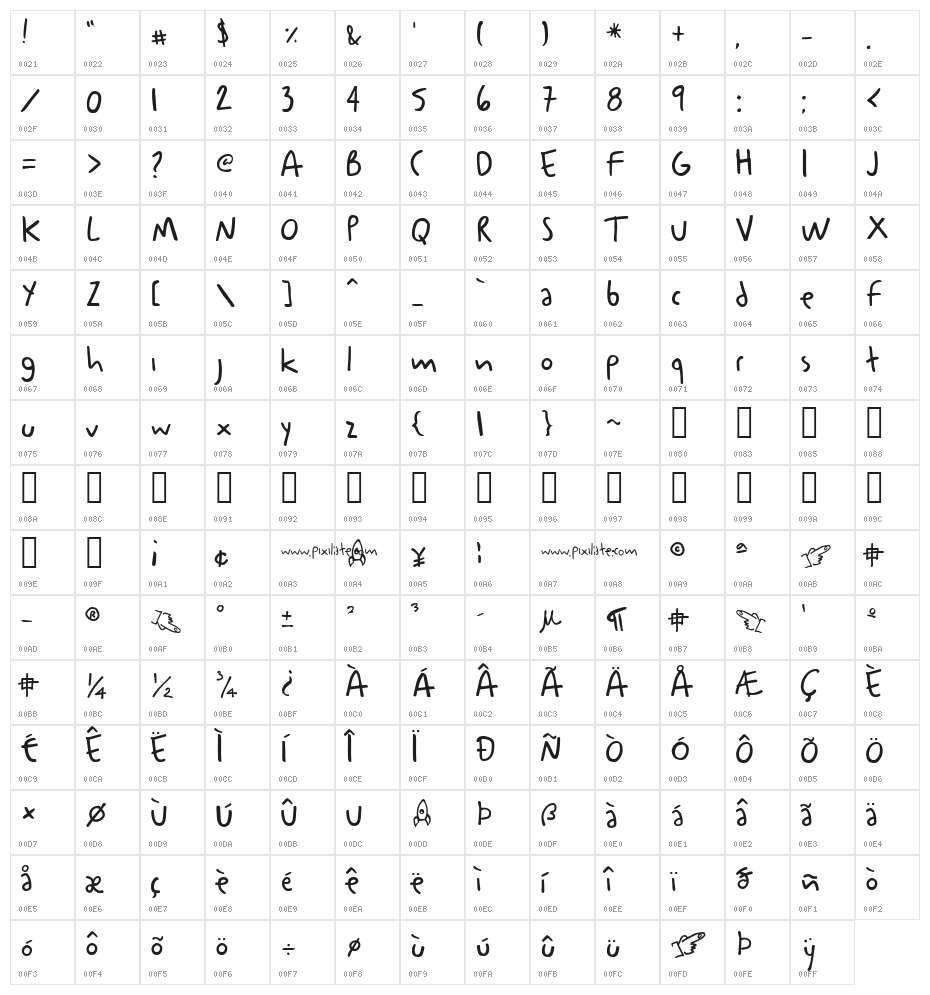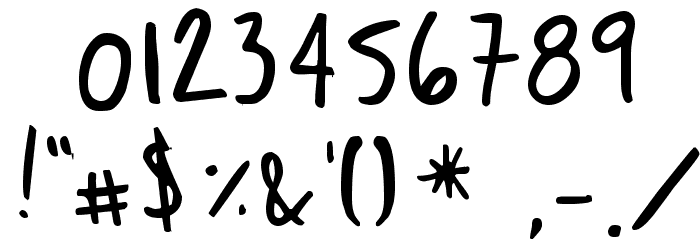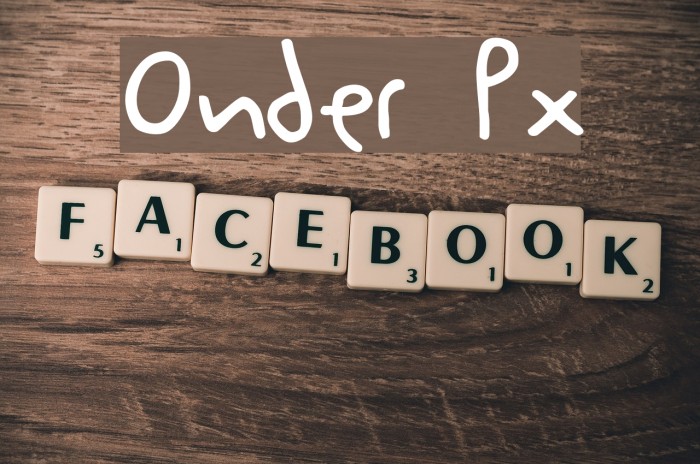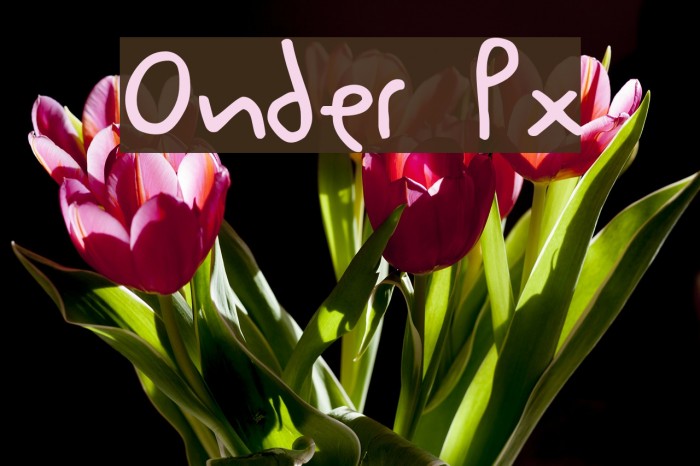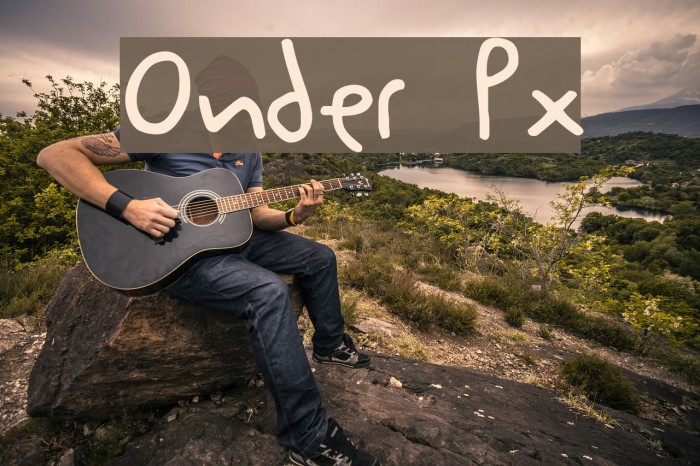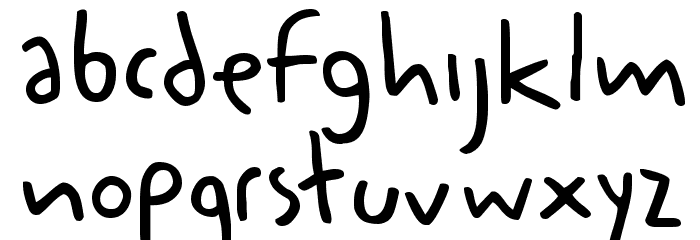
Onder Px Font
Onder Px Description
This font features a playful, handwritten style with a casual and informal appearance. The characters are slightly irregular, adding a personal touch that mimics natural handwriting. The strokes are consistent in thickness, giving it a uniform look despite its informal nature. The letters are well-spaced, ensuring readability, and the overall design is approachable and friendly. This style is perfect for projects that require a human touch or a relaxed vibe, such as personal invitations, casual branding, or creative projects.
| Proposed Projects | Ideal for personal invitations, casual branding, creative projects, and any design needing a human touch. |